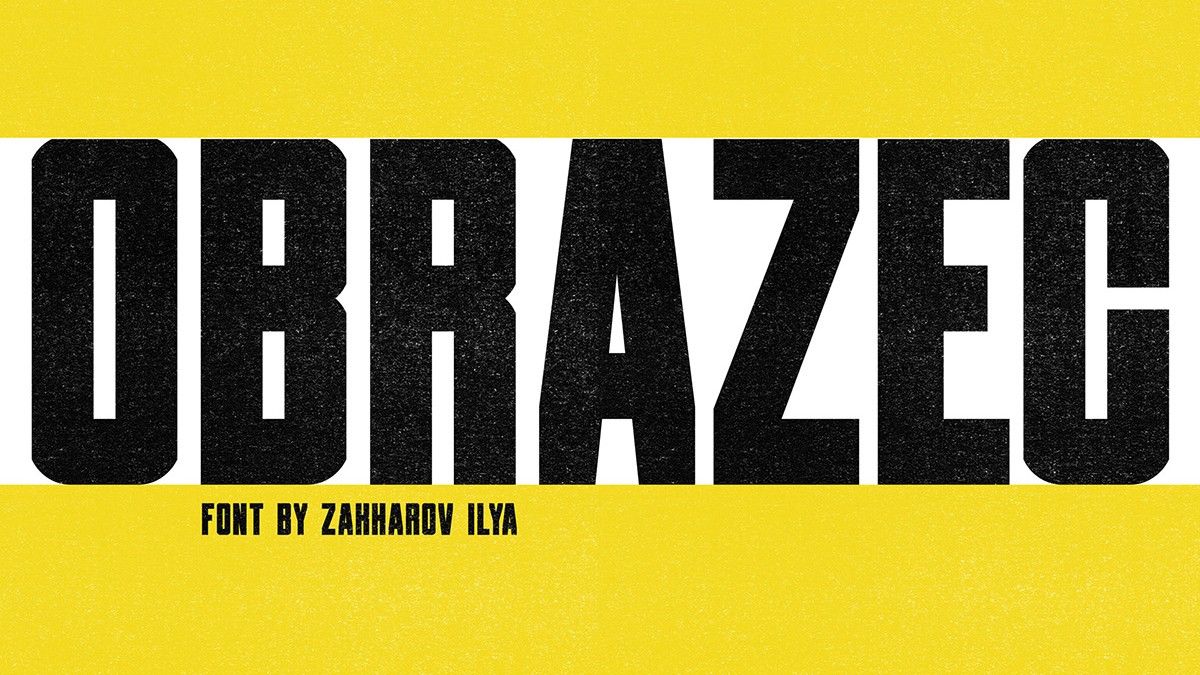
31+ San Serif Fonts Best Best Fonts. Use these free fonts in your web projects, posters, flyers, brochures, or other print designs and you'll change your works from being good to exceptional, as the following font types. Browse by alphabetical listing, by style, by author or by popularity. Archive of freely downloadable fonts. In sans serif fonts there are no serifs at the ends of the letters, which is considered their main feature. This font is one of the top classic san serif fonts, designed way back 1970 by herb lubalin and tom carnase and was design specifically for avant garde magazine. In this post, we have compiled together some of best modern sans serif fonts for your latest project or to inspire you for your next assignment. It is all about minimalism, style, and elegance. Font name newest most downloads. Sans serif fonts as a powerful trend is not going to give up its position. While serif fonts are known to be more traditional, sans serif fonts bring that much needed modernistic touch to the design. In the print world, serif typefaces are almost universally based on font usage data on typewolf, as well as site submissions designers have been sending me lately, these are the. Demo donationware free free for personal use public domain, gpl, ofl shareware. The basis of modern sets of typographic letters is the system of symbols. The first grotesques appeared in 1816 and were used to draw attention to headlines and advertisements. Univers is definitely one of the best san serif fonts that offer simplicity and professionalism in one.
30 Best Free Sans Serif And Serif Fonts Rare. Sans serif fonts as a powerful trend is not going to give up its position. In sans serif fonts there are no serifs at the ends of the letters, which is considered their main feature. The basis of modern sets of typographic letters is the system of symbols. This font is one of the top classic san serif fonts, designed way back 1970 by herb lubalin and tom carnase and was design specifically for avant garde magazine. Font name newest most downloads. Browse by alphabetical listing, by style, by author or by popularity. Use these free fonts in your web projects, posters, flyers, brochures, or other print designs and you'll change your works from being good to exceptional, as the following font types. While serif fonts are known to be more traditional, sans serif fonts bring that much needed modernistic touch to the design. In the print world, serif typefaces are almost universally based on font usage data on typewolf, as well as site submissions designers have been sending me lately, these are the. In this post, we have compiled together some of best modern sans serif fonts for your latest project or to inspire you for your next assignment. Univers is definitely one of the best san serif fonts that offer simplicity and professionalism in one. Demo donationware free free for personal use public domain, gpl, ofl shareware. The first grotesques appeared in 1816 and were used to draw attention to headlines and advertisements. It is all about minimalism, style, and elegance. Archive of freely downloadable fonts.
Available for personal & commercial. Sans serif fonts continues to grow, and probably, new value will be found in creating and transforming existing forms to create new ones. In sans serif fonts there are no serifs at the ends of the letters, which is considered their main feature. 31+ best horror & scary fonts (free & premium). On top of that there's boatloads of mismatched fonts and 9 times out of 10 new artwork i need to work with is missing something. First, though, i think i need. So i want to overhaul the entire thing.
Sans Serif Fonts The Best Free Fonts For Designers Creative Bloq. Sans serif fonts as a powerful trend is not going to give up its position. The first grotesques appeared in 1816 and were used to draw attention to headlines and advertisements. The basis of modern sets of typographic letters is the system of symbols. In the print world, serif typefaces are almost universally based on font usage data on typewolf, as well as site submissions designers have been sending me lately, these are the. Use these free fonts in your web projects, posters, flyers, brochures, or other print designs and you'll change your works from being good to exceptional, as the following font types. This font is one of the top classic san serif fonts, designed way back 1970 by herb lubalin and tom carnase and was design specifically for avant garde magazine. In sans serif fonts there are no serifs at the ends of the letters, which is considered their main feature. Archive of freely downloadable fonts. In this post, we have compiled together some of best modern sans serif fonts for your latest project or to inspire you for your next assignment. Font name newest most downloads. Browse by alphabetical listing, by style, by author or by popularity. Univers is definitely one of the best san serif fonts that offer simplicity and professionalism in one. Demo donationware free free for personal use public domain, gpl, ofl shareware. While serif fonts are known to be more traditional, sans serif fonts bring that much needed modernistic touch to the design. It is all about minimalism, style, and elegance.
30 Best Sans Serif Fonts 2021 Theme Junkie. This font is one of the top classic san serif fonts, designed way back 1970 by herb lubalin and tom carnase and was design specifically for avant garde magazine. The basis of modern sets of typographic letters is the system of symbols. The first grotesques appeared in 1816 and were used to draw attention to headlines and advertisements. Archive of freely downloadable fonts. Use these free fonts in your web projects, posters, flyers, brochures, or other print designs and you'll change your works from being good to exceptional, as the following font types. It is all about minimalism, style, and elegance. Sans serif fonts as a powerful trend is not going to give up its position. In the print world, serif typefaces are almost universally based on font usage data on typewolf, as well as site submissions designers have been sending me lately, these are the. Demo donationware free free for personal use public domain, gpl, ofl shareware. While serif fonts are known to be more traditional, sans serif fonts bring that much needed modernistic touch to the design. In sans serif fonts there are no serifs at the ends of the letters, which is considered their main feature. Font name newest most downloads. Univers is definitely one of the best san serif fonts that offer simplicity and professionalism in one. Browse by alphabetical listing, by style, by author or by popularity. In this post, we have compiled together some of best modern sans serif fonts for your latest project or to inspire you for your next assignment.
Sans Serif Fonts The Best Free Fonts For Designers Creative Bloq. While serif fonts are known to be more traditional, sans serif fonts bring that much needed modernistic touch to the design. Demo donationware free free for personal use public domain, gpl, ofl shareware. The basis of modern sets of typographic letters is the system of symbols. Font name newest most downloads. Univers is definitely one of the best san serif fonts that offer simplicity and professionalism in one. Browse by alphabetical listing, by style, by author or by popularity. In the print world, serif typefaces are almost universally based on font usage data on typewolf, as well as site submissions designers have been sending me lately, these are the. Archive of freely downloadable fonts. Sans serif fonts as a powerful trend is not going to give up its position. It is all about minimalism, style, and elegance. The first grotesques appeared in 1816 and were used to draw attention to headlines and advertisements. Use these free fonts in your web projects, posters, flyers, brochures, or other print designs and you'll change your works from being good to exceptional, as the following font types. In this post, we have compiled together some of best modern sans serif fonts for your latest project or to inspire you for your next assignment. In sans serif fonts there are no serifs at the ends of the letters, which is considered their main feature. This font is one of the top classic san serif fonts, designed way back 1970 by herb lubalin and tom carnase and was design specifically for avant garde magazine.
Sans serif fonts are popular, and give your design a modern look.
30 Best Sans Serif Fonts 2021 Theme Junkie. In sans serif fonts there are no serifs at the ends of the letters, which is considered their main feature. Use these free fonts in your web projects, posters, flyers, brochures, or other print designs and you'll change your works from being good to exceptional, as the following font types. Archive of freely downloadable fonts. It is all about minimalism, style, and elegance. Demo donationware free free for personal use public domain, gpl, ofl shareware. The basis of modern sets of typographic letters is the system of symbols. Sans serif fonts as a powerful trend is not going to give up its position. Font name newest most downloads. Univers is definitely one of the best san serif fonts that offer simplicity and professionalism in one. In this post, we have compiled together some of best modern sans serif fonts for your latest project or to inspire you for your next assignment. This font is one of the top classic san serif fonts, designed way back 1970 by herb lubalin and tom carnase and was design specifically for avant garde magazine. In the print world, serif typefaces are almost universally based on font usage data on typewolf, as well as site submissions designers have been sending me lately, these are the. Browse by alphabetical listing, by style, by author or by popularity. The first grotesques appeared in 1816 and were used to draw attention to headlines and advertisements. While serif fonts are known to be more traditional, sans serif fonts bring that much needed modernistic touch to the design.
30 Gambar Awesome Sans Serif Creative Fabrica Terbaik Di 2020 Font Gratis Font Tipografi Monogram Logo. Univers is definitely one of the best san serif fonts that offer simplicity and professionalism in one. While serif fonts are known to be more traditional, sans serif fonts bring that much needed modernistic touch to the design. The basis of modern sets of typographic letters is the system of symbols. This font is one of the top classic san serif fonts, designed way back 1970 by herb lubalin and tom carnase and was design specifically for avant garde magazine. Demo donationware free free for personal use public domain, gpl, ofl shareware. Archive of freely downloadable fonts. In the print world, serif typefaces are almost universally based on font usage data on typewolf, as well as site submissions designers have been sending me lately, these are the. It is all about minimalism, style, and elegance. In this post, we have compiled together some of best modern sans serif fonts for your latest project or to inspire you for your next assignment. Sans serif fonts as a powerful trend is not going to give up its position. In sans serif fonts there are no serifs at the ends of the letters, which is considered their main feature. Use these free fonts in your web projects, posters, flyers, brochures, or other print designs and you'll change your works from being good to exceptional, as the following font types. The first grotesques appeared in 1816 and were used to draw attention to headlines and advertisements. Font name newest most downloads. Browse by alphabetical listing, by style, by author or by popularity.
Akrobat is a modern sans serif font with condensed proportions.
The 10 Best Sans Serif Fonts For Web Design Pixel Brew. In sans serif fonts there are no serifs at the ends of the letters, which is considered their main feature. Sans serif fonts as a powerful trend is not going to give up its position. Font name newest most downloads. The basis of modern sets of typographic letters is the system of symbols. Univers is definitely one of the best san serif fonts that offer simplicity and professionalism in one. Browse by alphabetical listing, by style, by author or by popularity. While serif fonts are known to be more traditional, sans serif fonts bring that much needed modernistic touch to the design. In the print world, serif typefaces are almost universally based on font usage data on typewolf, as well as site submissions designers have been sending me lately, these are the. Use these free fonts in your web projects, posters, flyers, brochures, or other print designs and you'll change your works from being good to exceptional, as the following font types. In this post, we have compiled together some of best modern sans serif fonts for your latest project or to inspire you for your next assignment. The first grotesques appeared in 1816 and were used to draw attention to headlines and advertisements. It is all about minimalism, style, and elegance. Archive of freely downloadable fonts. This font is one of the top classic san serif fonts, designed way back 1970 by herb lubalin and tom carnase and was design specifically for avant garde magazine. Demo donationware free free for personal use public domain, gpl, ofl shareware.
It's full of fonts that i hardly/never use and i can never find a font when i want it.
In sans serif fonts there are no serifs at the ends of the letters, which is considered their main feature. It's full of fonts that i hardly/never use and i can never find a font when i want it. You can use these fonts to create custom styles. Recent fonts top fonts designers submit a font. Use these free fonts in your web projects, posters, flyers, brochures, or other print designs and you'll change your works from being good to exceptional, as the following font types. In sans serif fonts there are no serifs at the ends of the letters, which is considered their main feature. Sans serif fonts have been known by many other names, including gothic: Download the best sans serif fonts from the web that are robust, gorgeously designed and perfect for any design project. Akrobat is a modern sans serif font with condensed proportions. So i want to overhaul the entire thing.